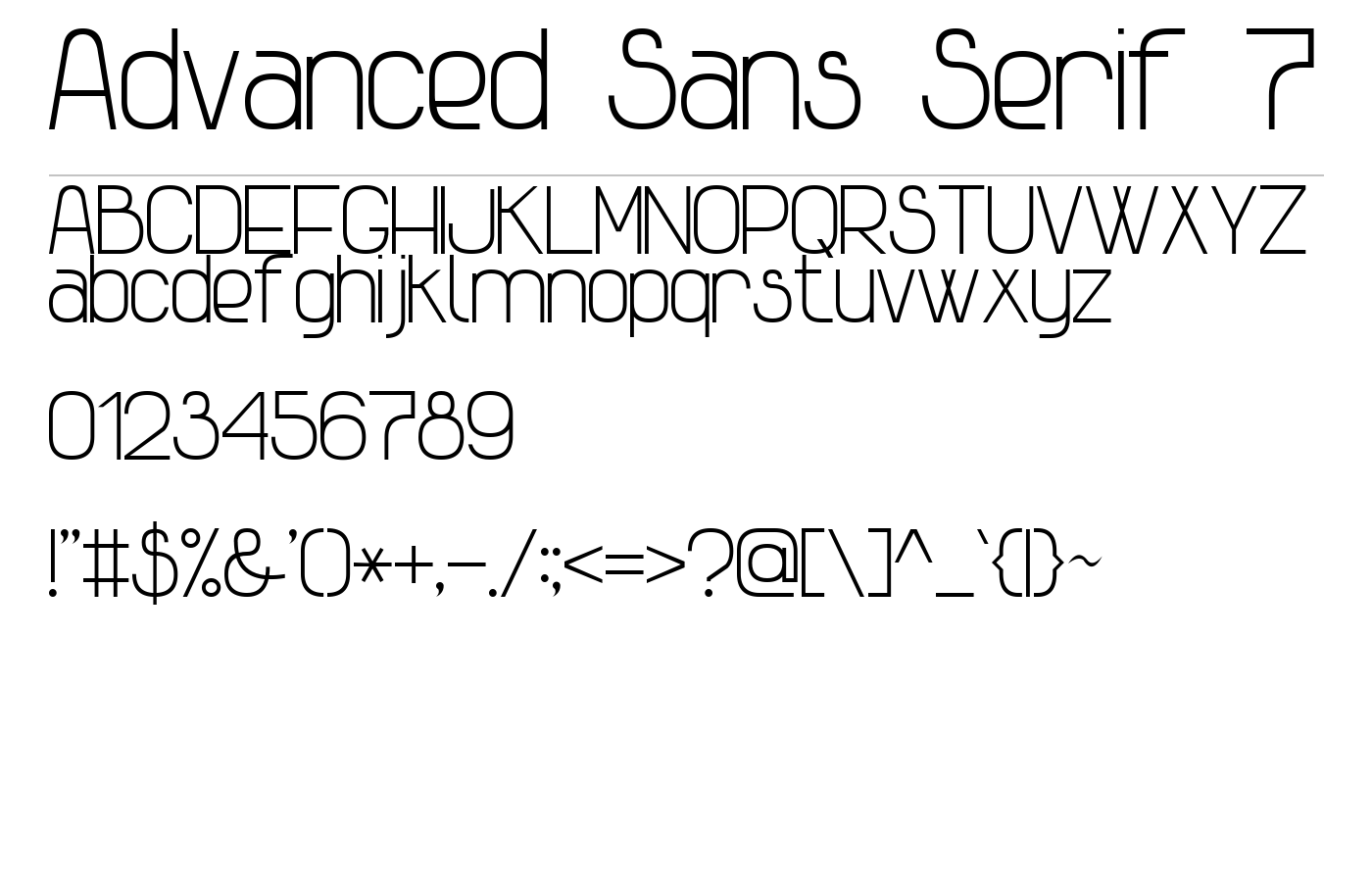
Advanced Sans Serif 7 is a sleek, modern sans serif font characterized by its tall, narrow letterforms and consistent light weight. Its geometric structure and minimal stroke contrast give it a clean, technical feel, making it ideal for contemporary branding, editorials, and digital interfaces seeking a refined and futuristic look. The font's spacious and airy design ensures excellent readability while maintaining a distinctive style for headlines and display purposes.
Advanced Sans Serif 7 Font
About Advanced Sans Serif 7 Font